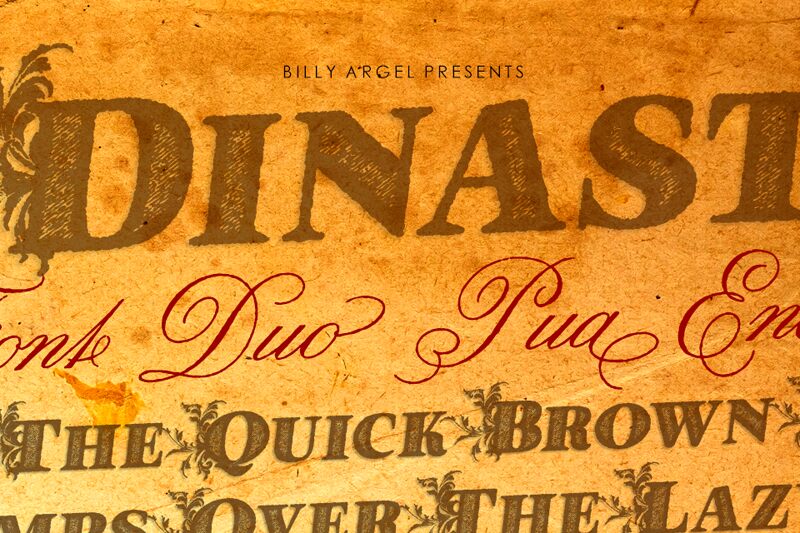
Dinasty is a stunning display font designed by Billy Argel Fonts, perfect for projects that require a bold and decorative aesthetic. With its extra-bold weight and unique style, Dinasty is ideal for creating impactful headlines, attention-grabbing logos, and eye-catching posters. Whether you're designing a music album cover or crafting a social media campaign, Dinasty is sure to make your project stand out from the crowd. Its elegant curves and flowing lines add an air of sophistication to any design, making it suitable for everything from fashion magazines to luxury branding campaigns. Make an unforgettable statement with Dinasty!
Font duo with three fonts files, bold, bold italic and script .